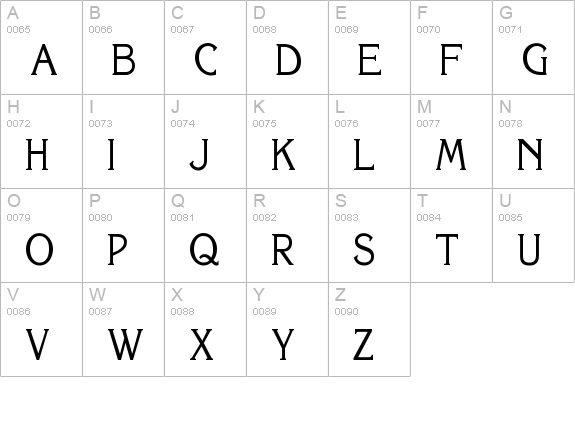
Keira Condensed Normal is the standard, neutral, condensed-width variant in the Keira typeface family \xE2\x80\x94 well suited to general body text, paragraphs, and standard typographic work.
Keira Condensed Normal font is a sleek and sophisticated typeface that exudes elegance and modernity. With its clean lines and balanced proportions, this font is perfect for creating minimalist and contemporary designs. The condensed form of the letters adds a touch of sophistication, making it ideal for headings, logos, and branding projects. One of the best aspects of Keira Condensed Normal font is that it is available for free download at FontsMarket.com. This means that designers and creatives can easily access and use this stunning font without any cost. Whether you are a professional designer or a hobbyist, having access to high-quality fonts like Keira Condensed Normal can greatly enhance your creative projects. The versatility of Keira Condensed Normal font is another reason why it is a valuable addition to any font collection. Its clean and legible design ensures that it can be used across a wide range of applications, from print materials like brochures and magazines to digital media such as websites and social media graphics. No matter the project, Keira Condensed Normal font will bring a touch of sophistication and style. In conclusion, Keira Condensed Normal font is a must-have for any designer or creative looking to add a touch of elegance to their projects. And the best part is that it is freely available to download at FontsMarket.com. So why wait? Grab this stunning font today and elevate your designs to new heights.